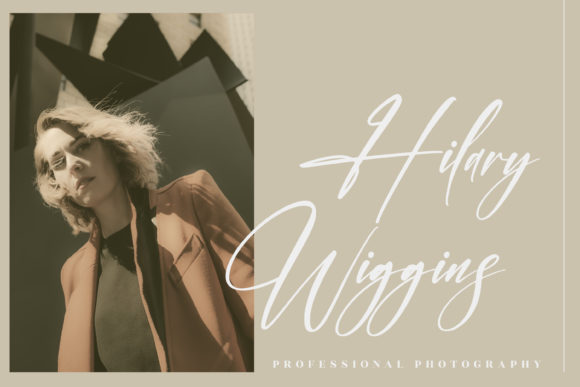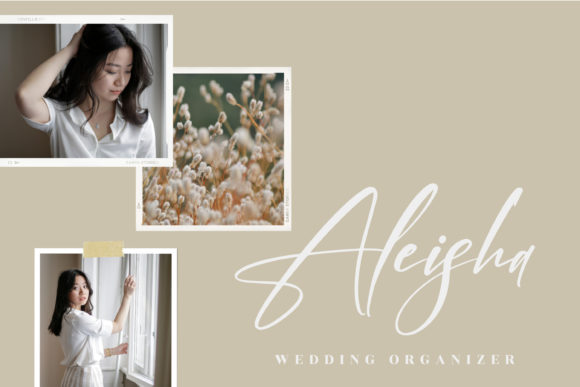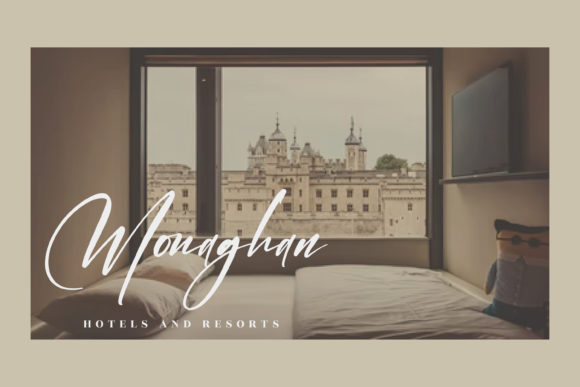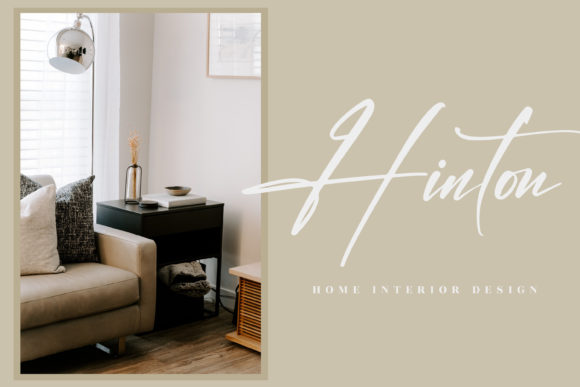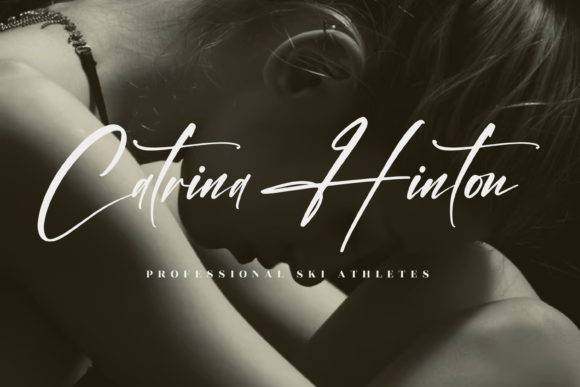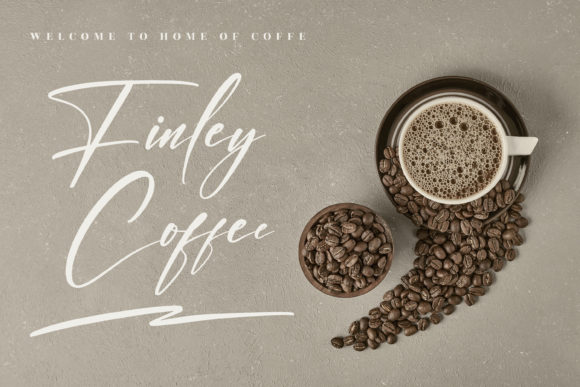
Introduction to Martisla Rondela Font
Martisla Rondela is an elegant and timeless handwritten font.
It is the best choice for creating eye catching logos, branding and quotes This font is PUA encoded which means you can access all of the glyphs and swashes with ease.